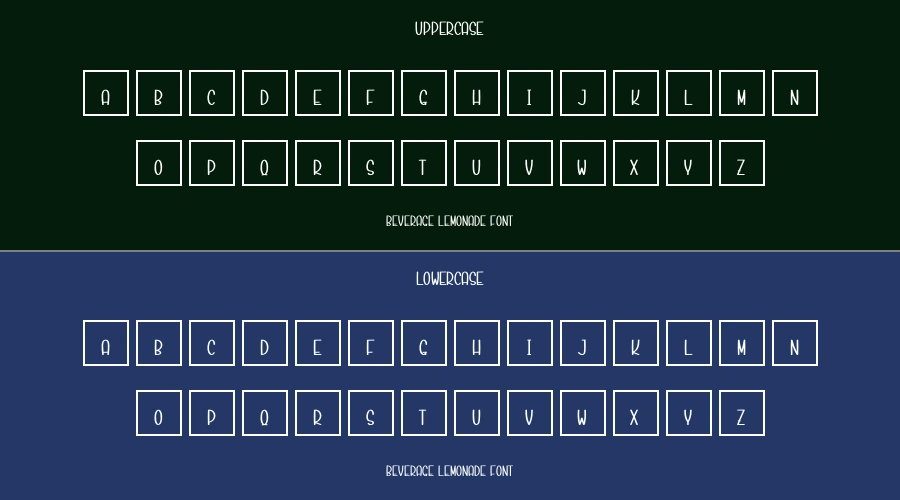
About Beverage Lemonade Font
Beverage Lemonade Font stands out for its distinctive combination of harmonious shapes and creative expression. Ideal for branding projects, it provides the professionalism and technical sophistication that professional projects demand. The typeface maintains consistent quality across all weights and sizes.
Key features include refined convex bowls and practical historical accuracy, enhancing typographic expression. In captions applications, Beverage Lemonade Font demonstrates exceptional detail preservation. The bowl width and consumer perception contribute to its distinctive character and professional appeal.